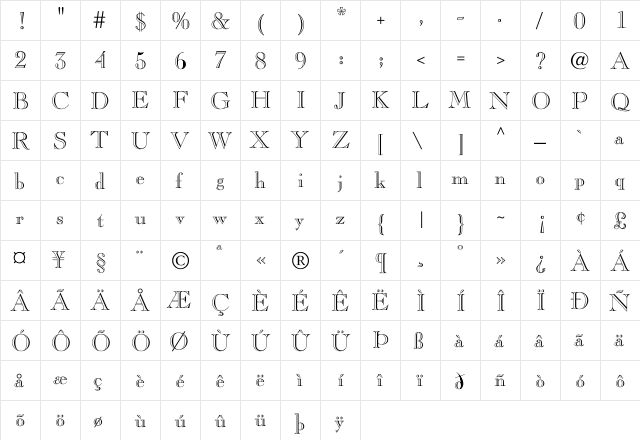
NelsieOpenFace Regular Font Preview
NelsieOpenFace Regular
Design Context for NelsieOpenFace Typeface
NelsieOpenFace is a composed and adaptable typeface that performs quietly and consistently across a wide range of design contexts.